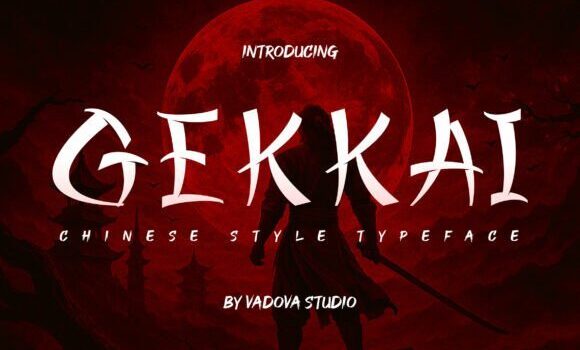
Gekkai Font – Free Download Introduction to Gekkai Font Gekkai is a striking Chinese-style typeface that powerfully captures the essence of traditional East Asian calligraphy with a bold and dynamic modern twist. 📸 Preview Gallery 6 images 📌 Product Name